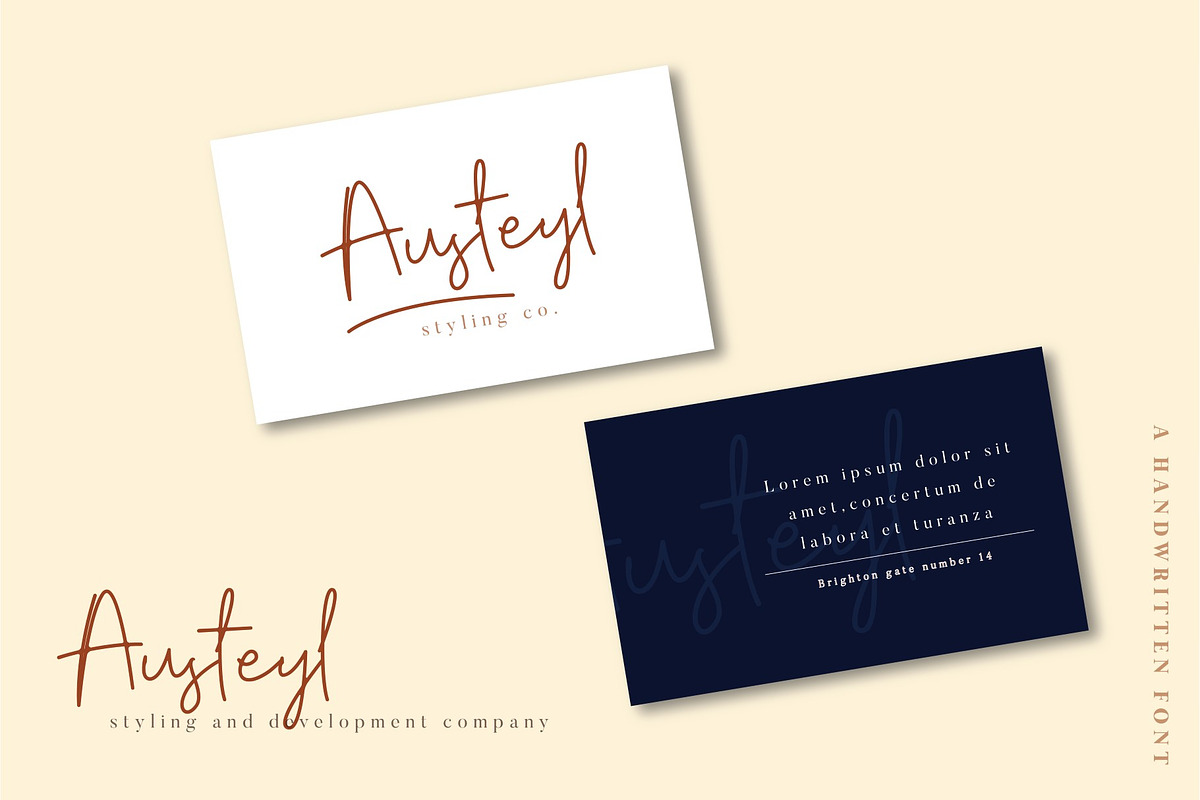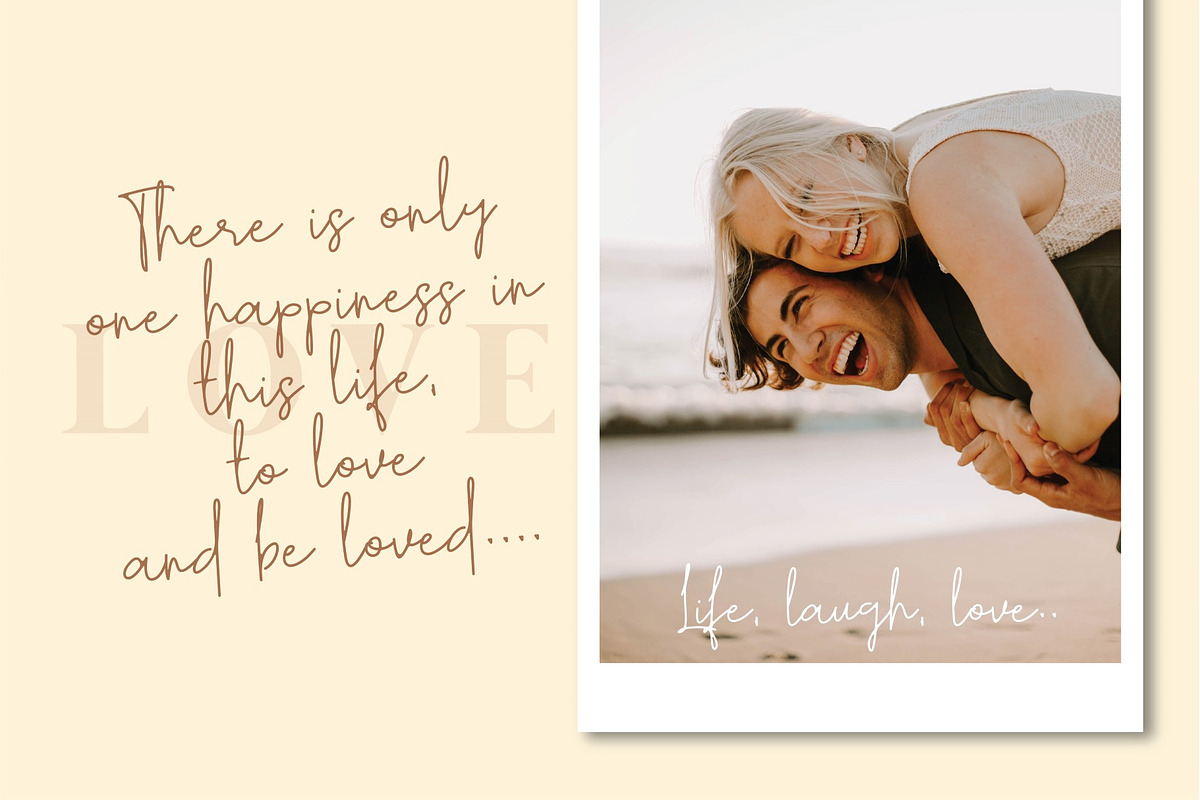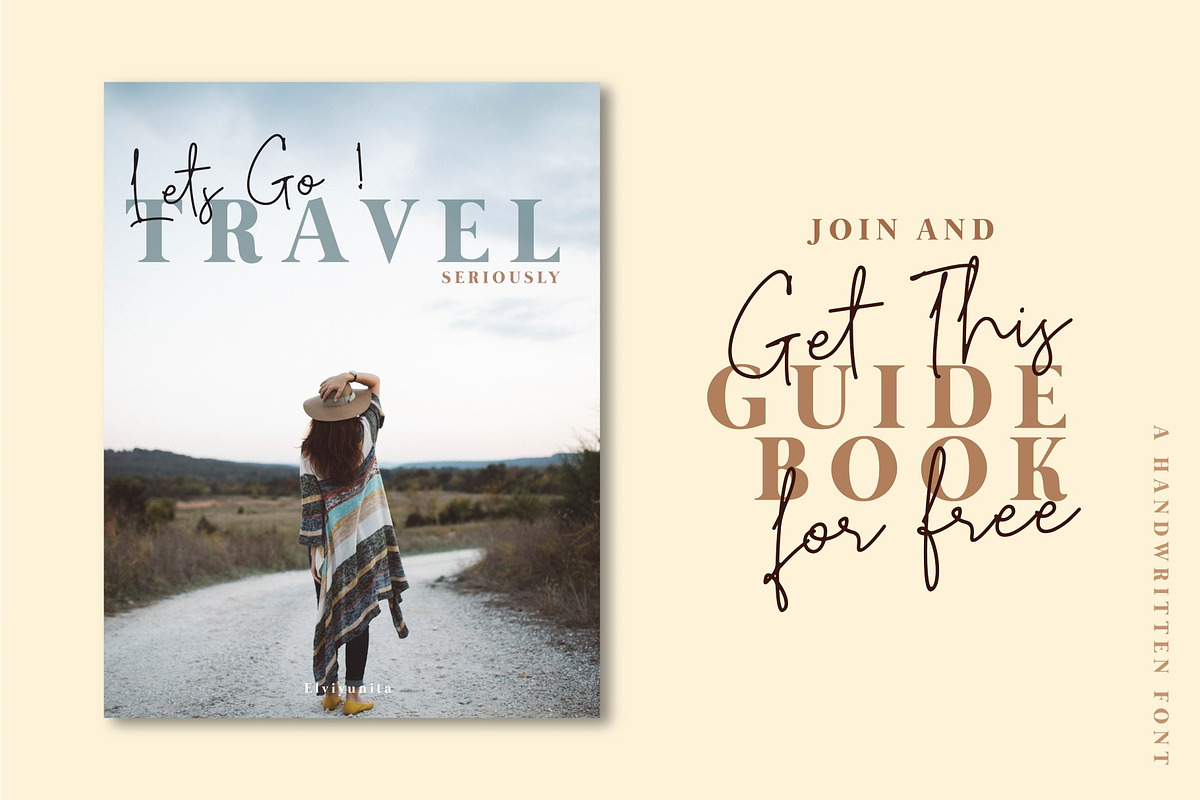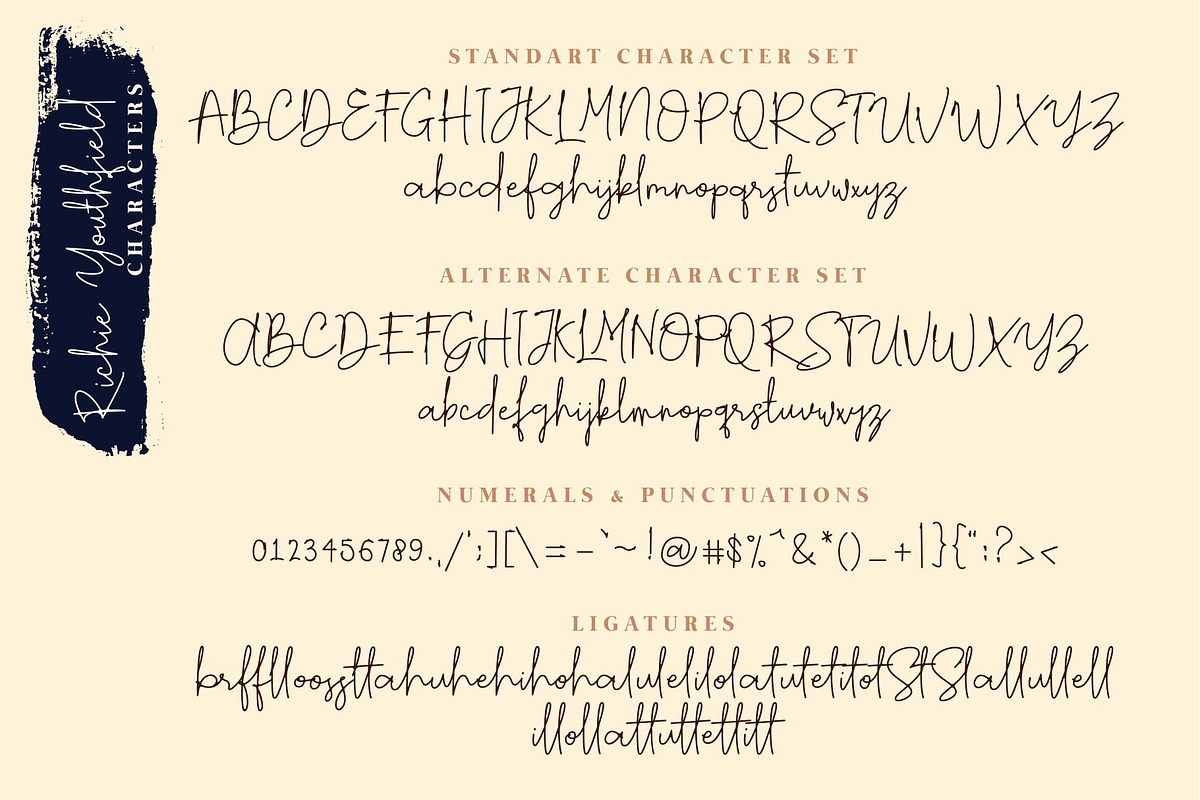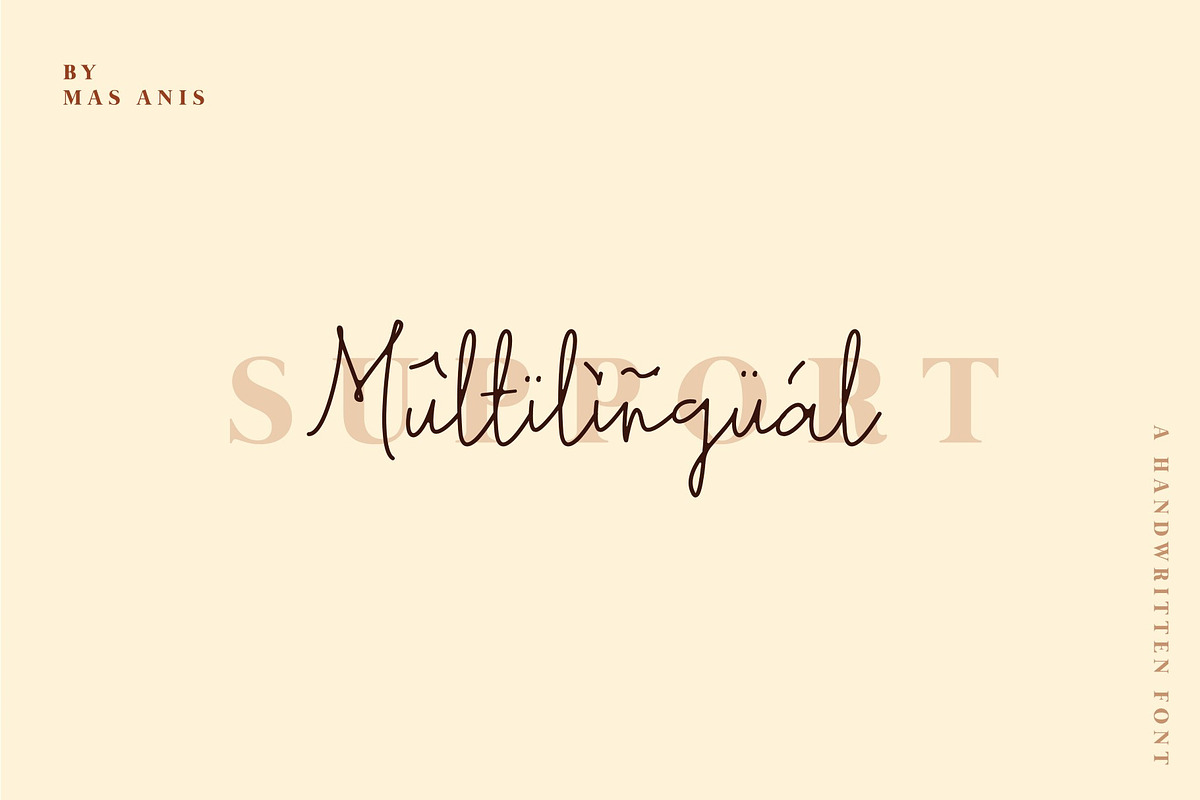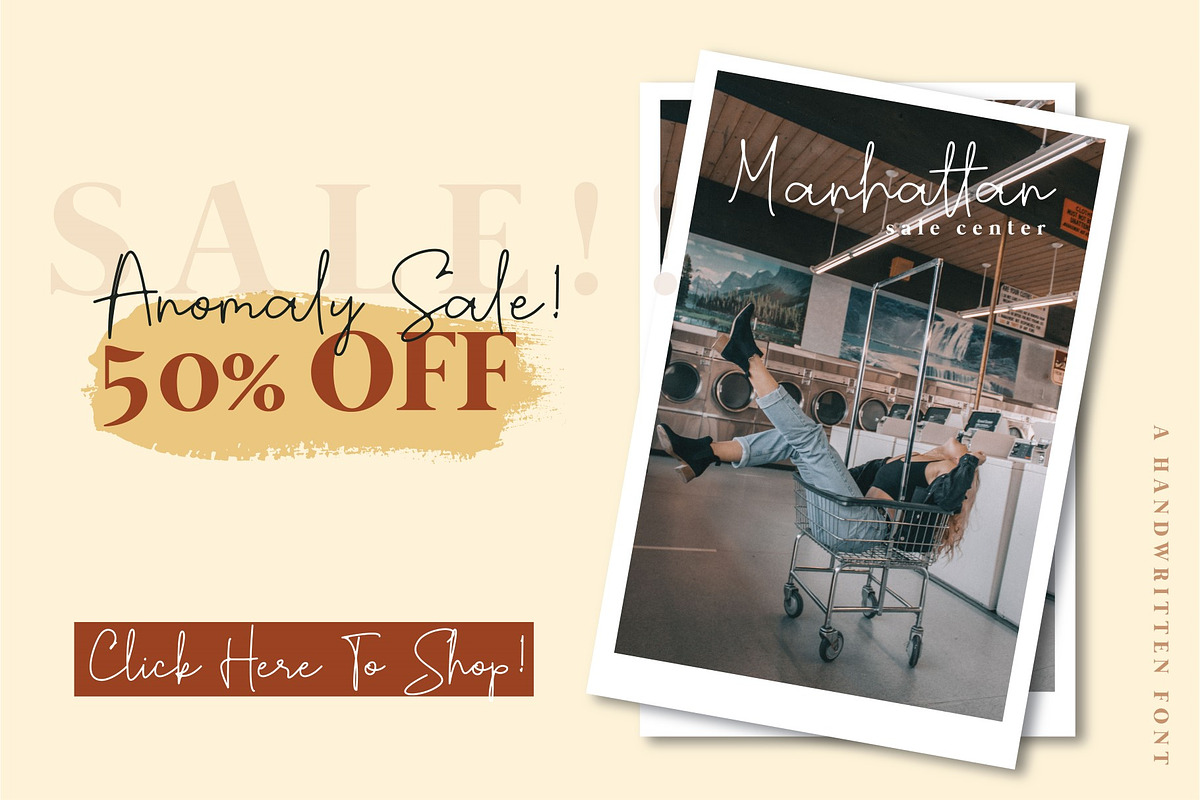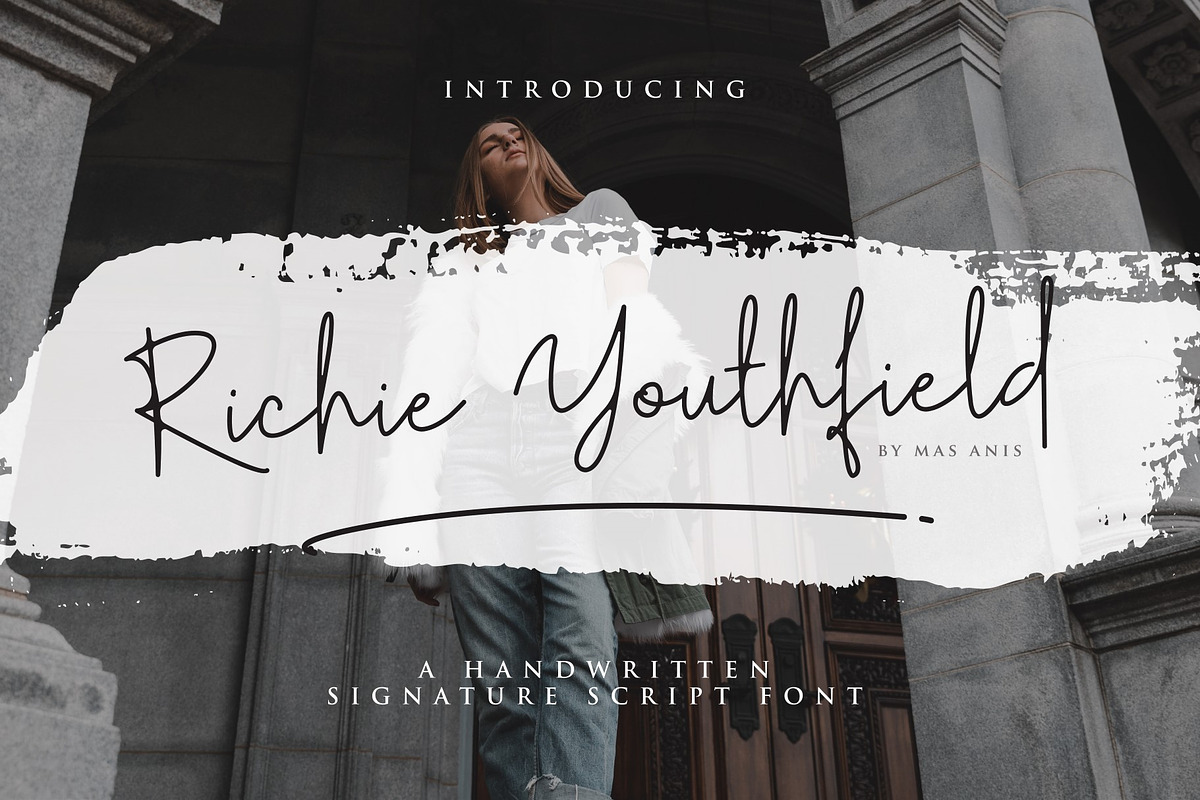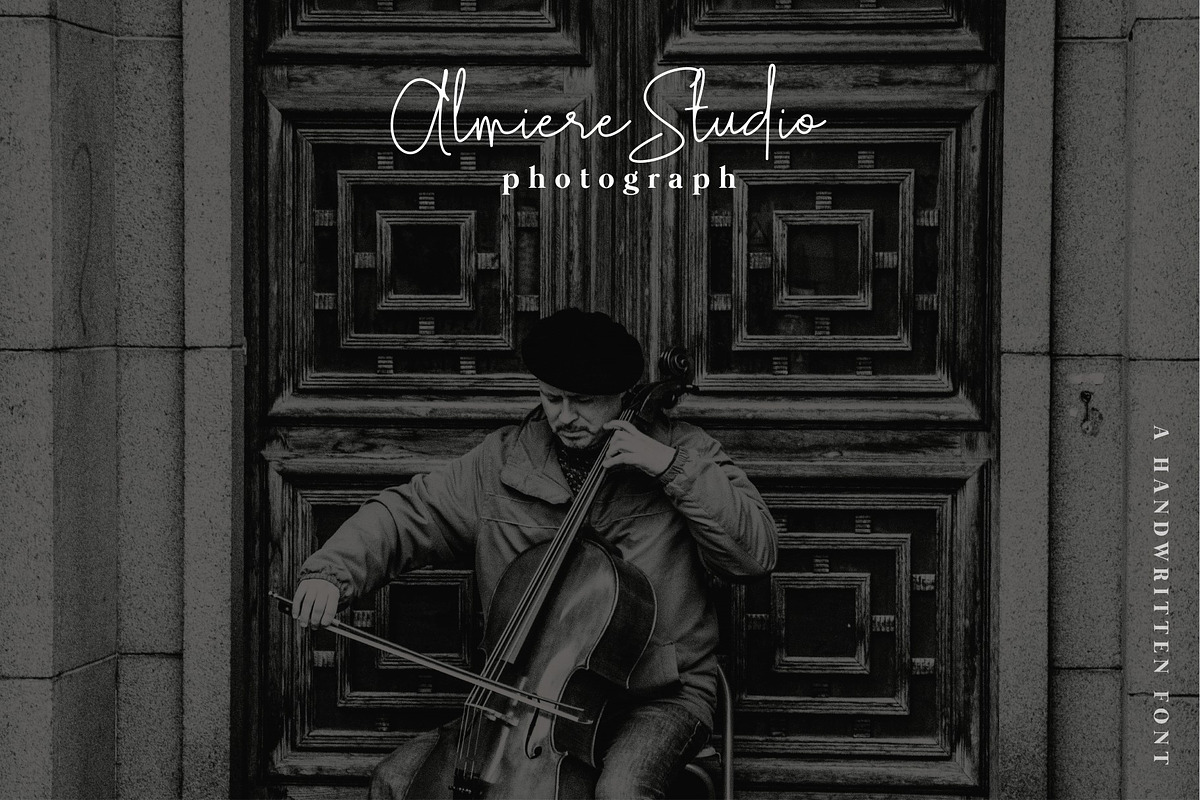
Richie Youthfield - Signature Font
Richie Youthfield is a brilliant signature font for your any design project.
We keep this font looks elegant, classy, readable, stylish, catchy and easy to use.
With Modern and Classy style make this font perfect for project like watermark for photo, wedding, event, invitation, escort card, table number, header menus, editorial, display, logos, slider blog, social media, custom address, stamps, packaging, greeting card, etc.
You can easily pair them with sans or serif font from all over the world to make your work more interesting!
Richie Youthfield Features :
Standart Uppercase and Lowercase Alphabet
Numbers and Punctuations
Alternate version of the font
Multilingual support AÀÁÂÃÄÅCÇDÐEÈÉÊËIÌÍÎÏNÑOØÒÓÔÕÖUÙÜÚÛWYÝŸỲŸÆŒßÞþ
- Standart Uppercase and Lowercase Alphabet
- Numbers and Punctuations
- Alternate version of the font
- OpenType Features
- Multilingual support AÀÁÂÃÄÅCÇDÐEÈÉÊËIÌÍÎÏNÑOØÒÓÔÕÖUÙÜÚÛWYÝŸỲŸÆŒßÞþ